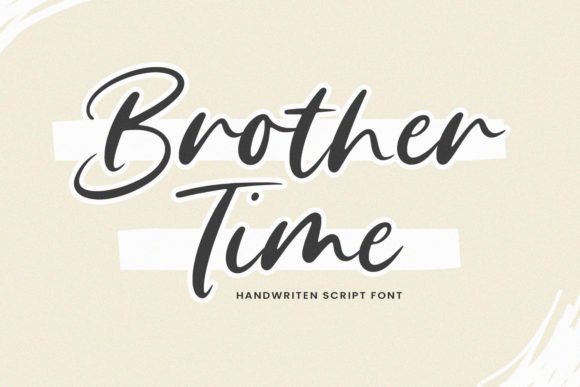
The Brother Time Font: A Timeless Elegance for Your Designs
A Personal Review: What I Love About Brother Time
The Brother Time font is a flowing handwritten font that exudes an elegant touch, making it perfect for your favorite projects. Here’s what I love about it:
- ✨ Incredibly distinct and timeless style
- ✅ Elegant and flowing handwritten script
- 💯 Perfect for creating spectacular designs, from logos to branding materials
- 👍 Highly legible, even at smaller font sizes
While Brother Time is an amazing font, there are a few things to keep in mind:
- 🤔 It may not be the best choice for body text, as it’s a script font and can be challenging to read in large blocks.
- ⚠️ Some characters may not work well with certain OpenType features, so it’s essential to test the font before finalizing your design.
The Brother Time font was created with inspiration from classic calligraphy and handwritten scripts. The designer aimed to craft a font that would evoke a sense of timeless elegance and sophistication. With its flowing lines and elegant touch, Brother Time is perfect for designers looking to add a touch of luxury to their projects.
| Font Name | Brother Time Font |
| Author | Timur type |
| What type of projects is Brother Time best suited for? | Brother Time is perfect for luxury branding, wedding invitations, high-end advertising, and any project that requires an elegant, sophisticated feel. |
| Can I use Brother Time for body text? | While Brother Time is a beautiful font, it’s not ideal for body text. Its script style can be challenging to read in large blocks, so it’s best used for headings, titles, or short paragraphs. |